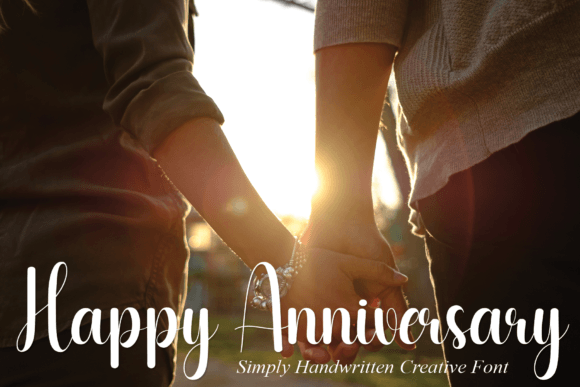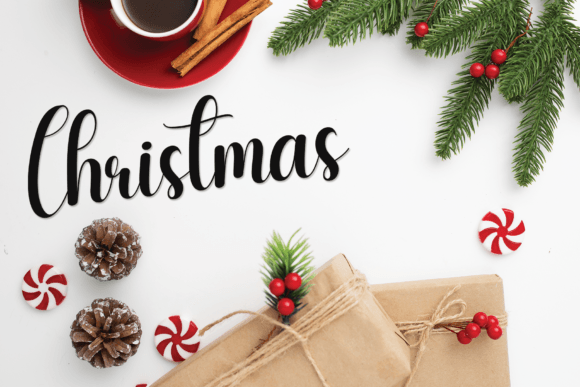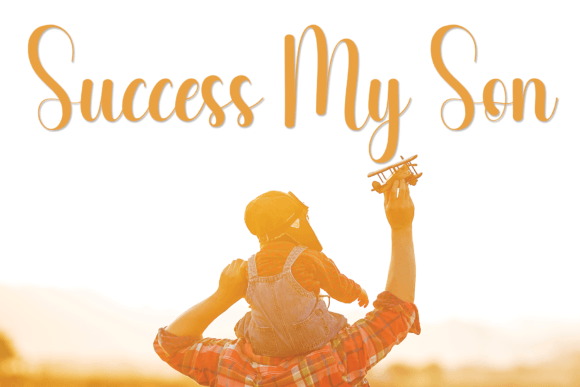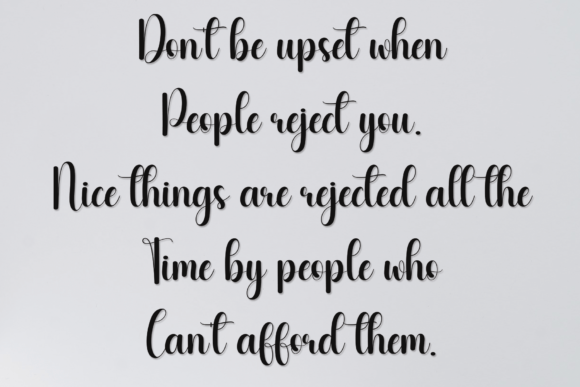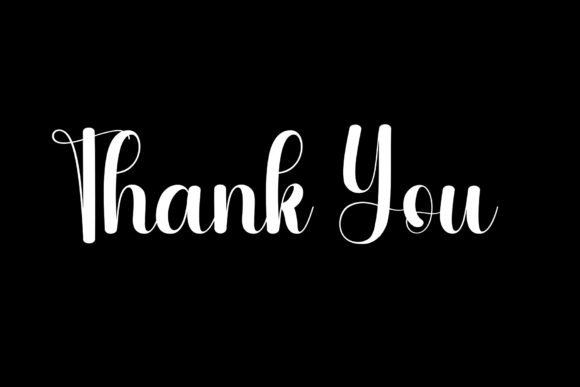
Unleash Your Creativity with the Dark Font
As you sit at your desk, staring blankly at your computer screen, waiting for that elusive spark of creativity to strike, you finally feel it – the urge to create something truly unique and captivating. You envision a bold, mysterious, and alluring design that will leave a lasting impression on your audience.
Introducing the Dark Font, a stylish and versatile font perfect for a wide range of applications, from wall displays and wedding invitations to social media post logos and product packaging. This font is a game-changer for designers, offering a simple yet elegant solution to elevate their projects to the next level. With its sleek and sophisticated design, the Dark Font is sure to make a statement and leave a lasting impression.
Key Features of Dark Font
- Unique Characteristics: Dark Font features a unique, hand-drawn design with subtle texture and shading, giving it a distinctive and elegant appearance.
Design Review: Dark Font
At first glance, Dark Font appears to be a solid choice for any design project that requires a mysterious and sleek aesthetic. ✨ The font’s clean lines and minimalist design make it an excellent choice for displaying text on dark backgrounds, and it’s particularly well-suited for use in logos, headers, and other prominent design elements. ✨
One of the standout features of Dark Font is its versatility. It can be used in a variety of contexts, from modern websites and apps to print materials like business cards and brochures. ✨ Additionally, the font’s wide range of weights and styles allows designers to experiment with different looks and feels, making it a great choice for designers who like to push the boundaries of their creative expression.
While Dark Font is a solid choice, there are a few limitations that designers should be aware of. ⚠️ For one, the font may be difficult to read in certain contexts, particularly in low-light environments or when displayed on small screens. Additionally, the font’s minimalist design may not be suitable for use in situations where a more playful or whimsical aesthetic is desired.
In conclusion, Dark Font is a solid choice for designers who are looking for a sleek and mysterious aesthetic. While it may have some limitations, its versatility and wide range of styles make it a great option for a variety of design projects.
Recommendations
- Use Dark Font on dark backgrounds to take full advantage of its design.
- Experiment with different weights and styles to find the perfect look for your design project.
- Avoid using Dark Font in situations where readability may be an issue.